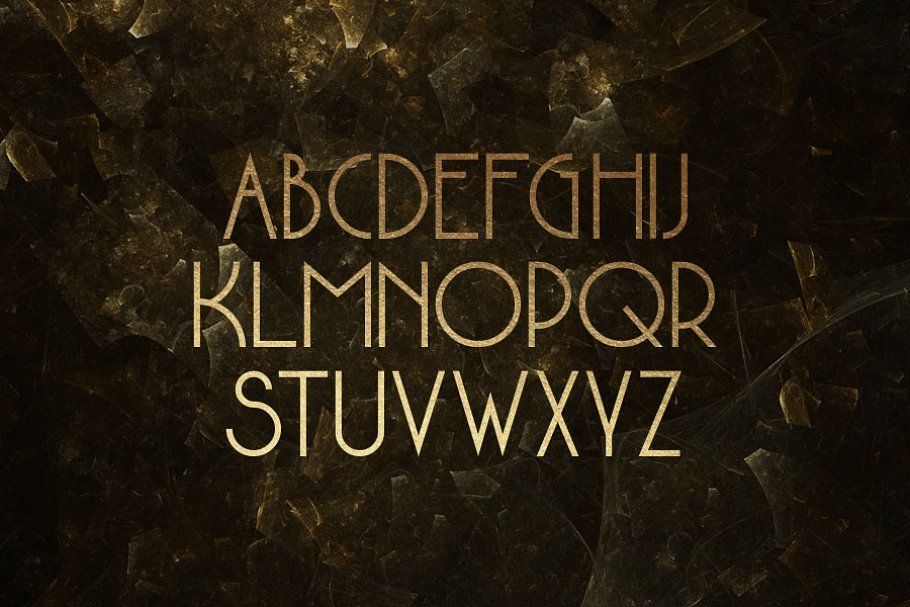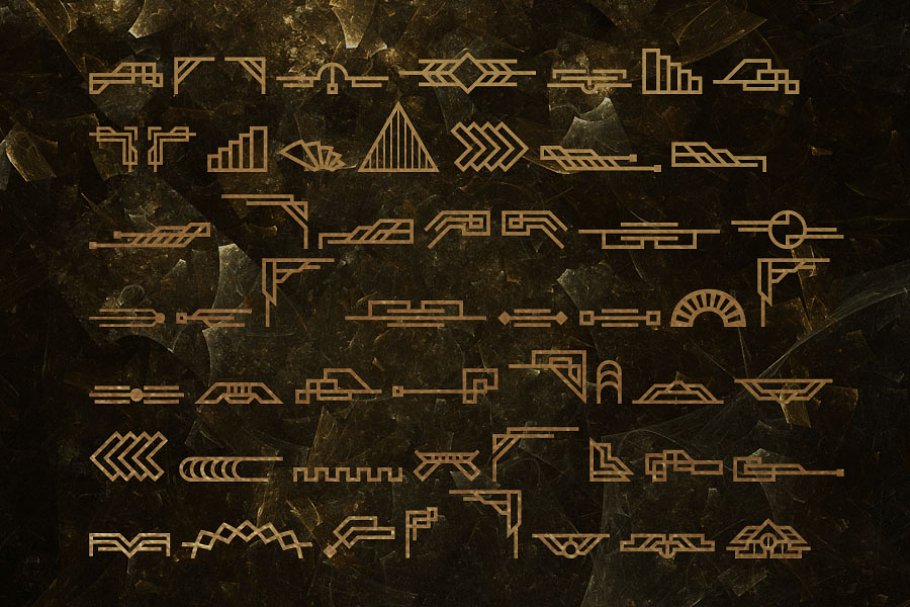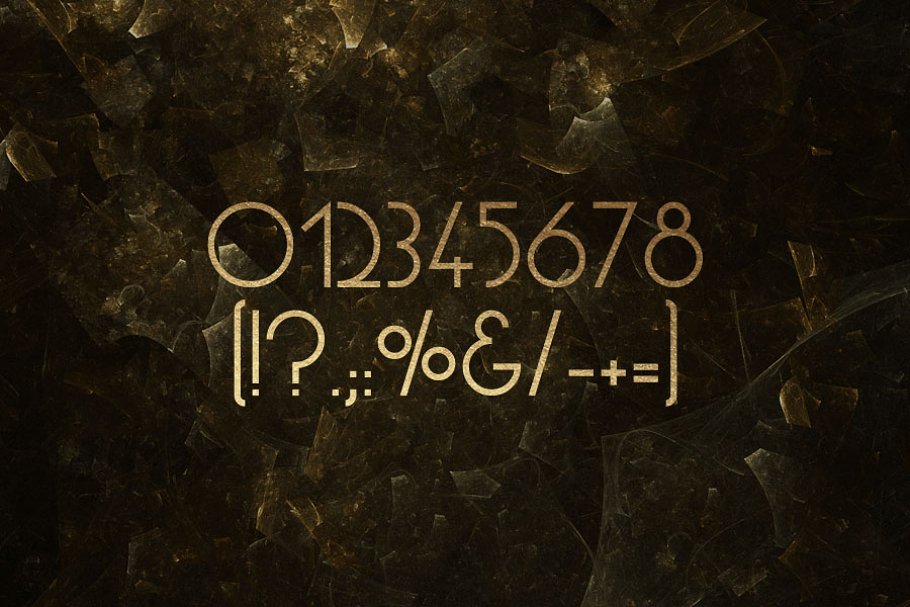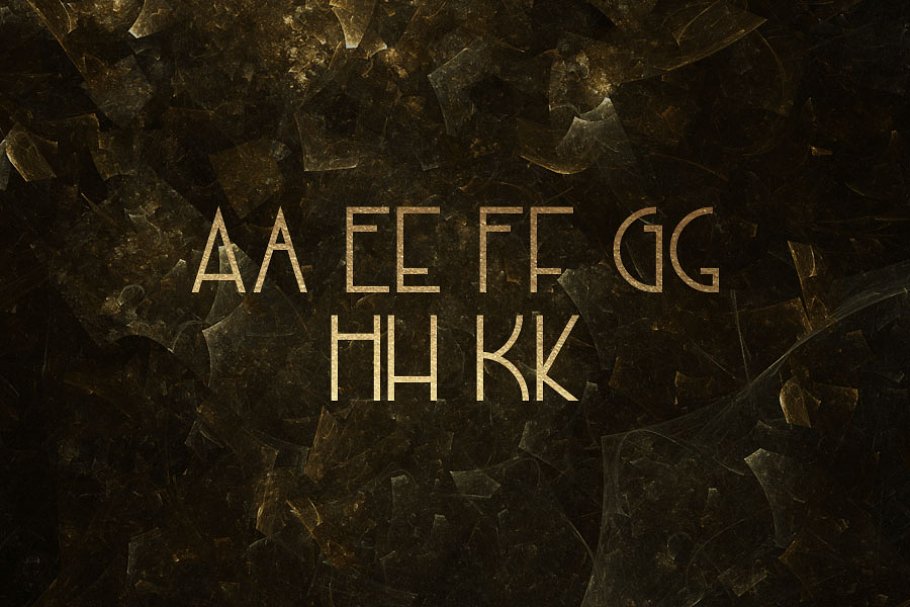
About the Metropolis Typeface Font
This product is part of the Art Deco Bundle: http://crtv, mk/s09y9Metropolis is an art-deco typeface with uppercase letters, numbers and punctuation, Toggle caps lock to use alternate characters, It also includes 50+ art deco themed ornaments and 3 gold textures, The cover texture is not included, Feel free to contact me via my website from the link below if you have any questions